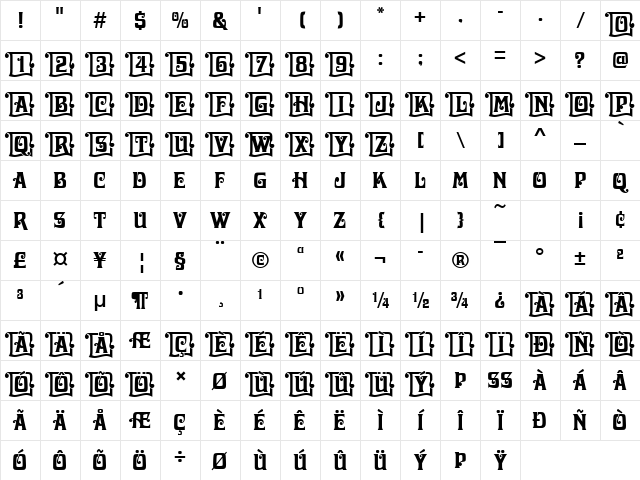
Davida Becker Initials Regular
Design Context for Davida Becker Initials
Davida Becker Initials is a composed and adaptable typeface that performs quietly and consistently across a wide range of design contexts.
Pro Tip: Use Davida Becker Initials in both headline and body roles to test its range before committing to a single application.